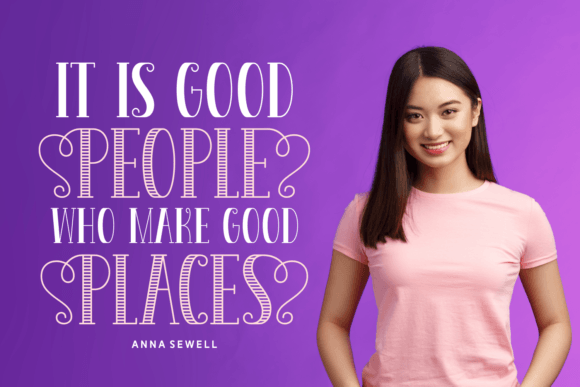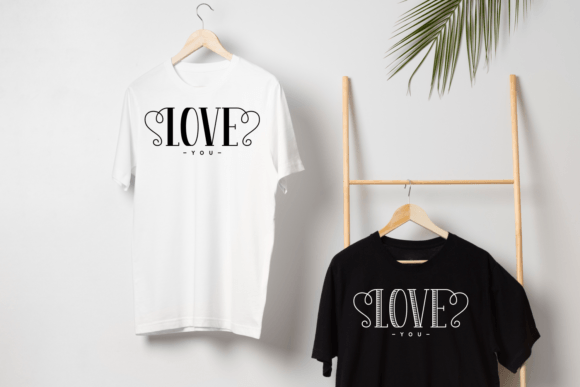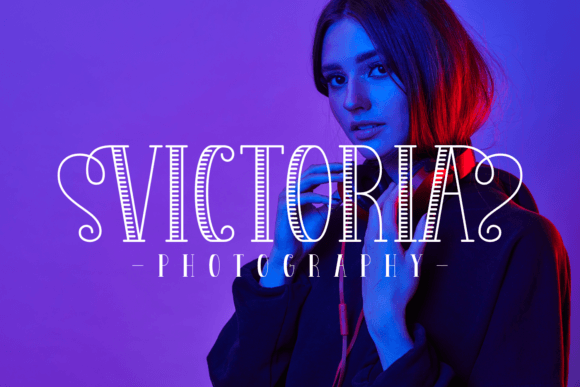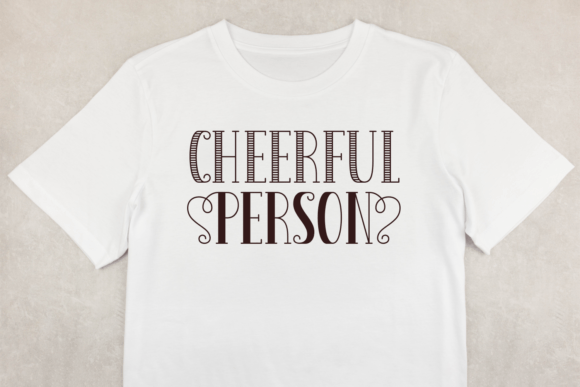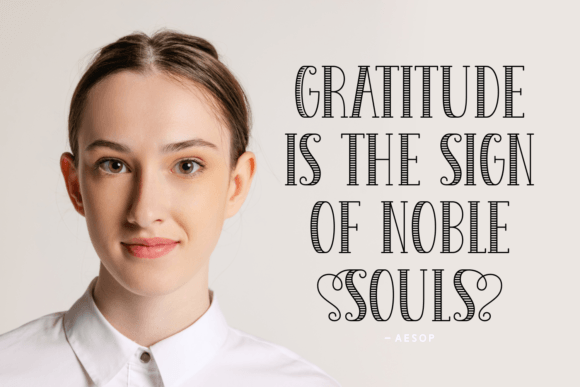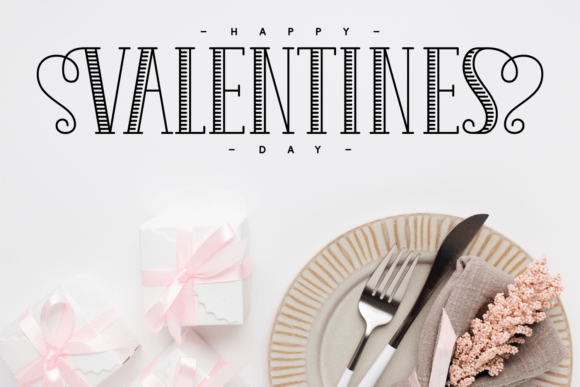
Unlocking Your Creative Potential with Shiness Font
Do you remember that moment when you finally found the perfect font to bring your design project to life? The feeling of excitement and relief that comes with knowing you’ve got the right tool to convey your message is priceless. For designers, finding the right font can be the difference between a mediocre project and a masterpiece.
That’s where Shiness Font comes in – a high-quality, versatile duo font that’s perfect for a wide range of creative projects. Whether you’re working on a design for a website, a book cover, or a social media campaign, Shiness Font is a valuable resource that can elevate your work to new heights.
Shiness Font
- Designed with a unique aesthetic, featuring intricate details and bold lines
Honest Review: Shiness Font
As a designer, I’m always on the lookout for high-quality design resources that can elevate my creative projects. Recently, I had the chance to try out the Shiness Font, and I’m excited to share my honest review.
- High-quality font design: The Shiness Font boasts a stunning, hand-drawn design that’s perfect for creating a unique visual identity.
- Limited font family: While the Shiness Font is a great addition to any design project, it’s a single font family, which may limit its versatility.
- No bold or italic variants: Although the font is available in a range of weights, it would be great to have bold and italic variants for added flexibility.
Overall, I’m impressed with the Shiness Font’s design quality and ease of use. While it has some limitations, I think it’s a valuable resource for designers working on creative projects, and I’d definitely consider using it again in the future.
Shiness Font
The Shiness Font is a high-quality design resource ideal for creative projects that require a unique touch. Its transparent background makes it easy to customize and integrate into various design elements.
The Shiness Font is ideal for a variety of creative projects, including:
- Logo design and branding.
- Graphic design and visual identity.
- Web design and development.
- Print design and publishing.